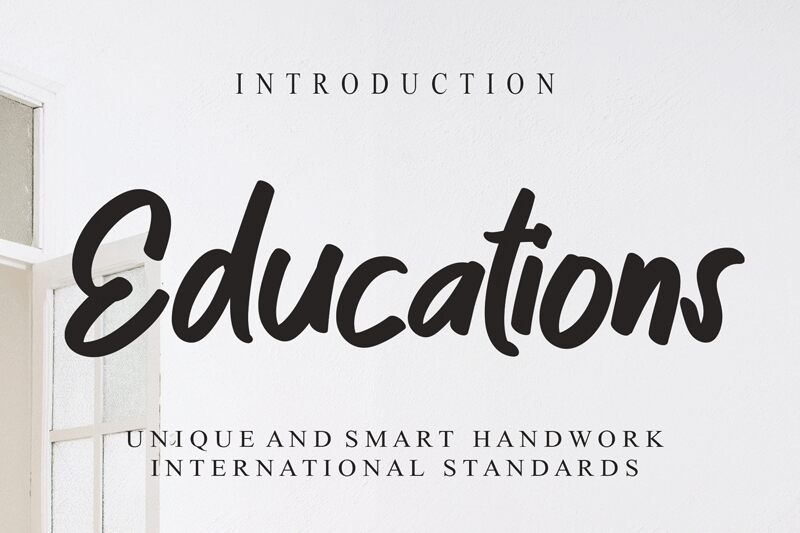
Educations
Educations font is a unique handwritten font designed by Belina Studio.
the latest style letters are perfect for wall displays, wedding invitations, social media post logos,
advertisements, product packaging, product designs, labels, photography, watermarks, invitations, stationery,
and any project that requires taste handwriting.